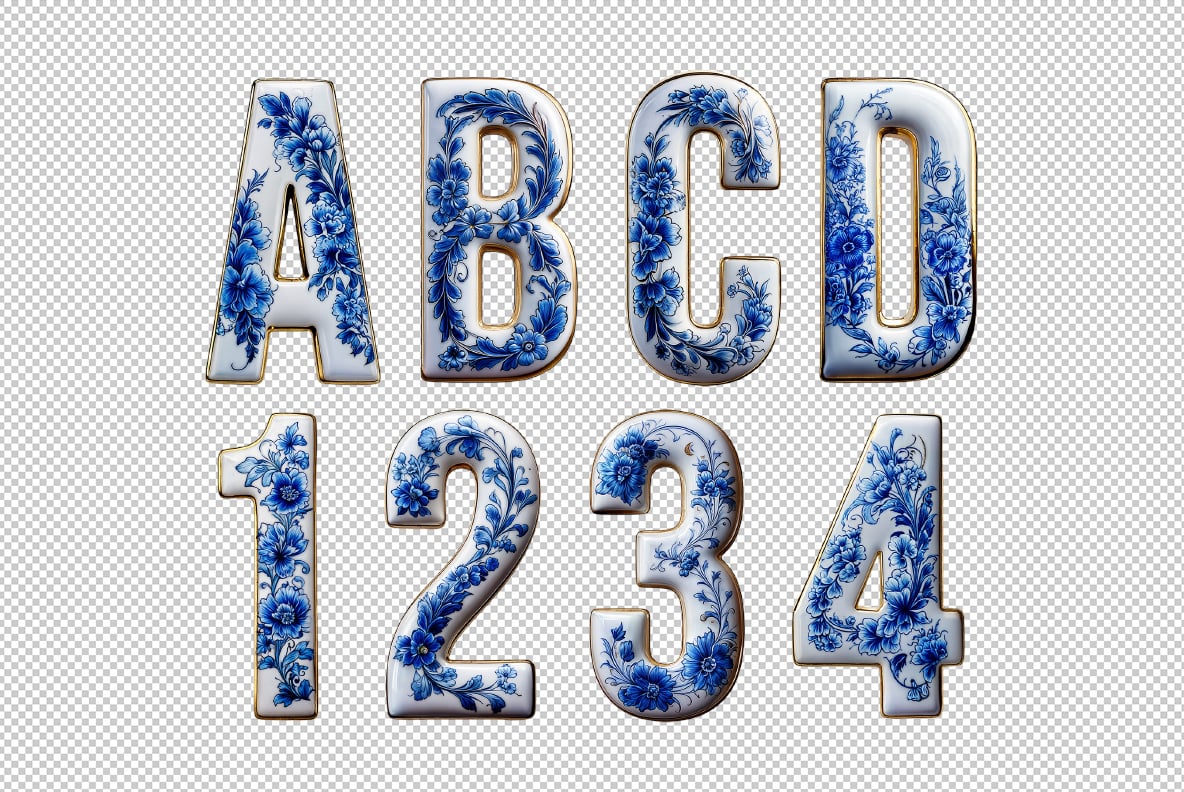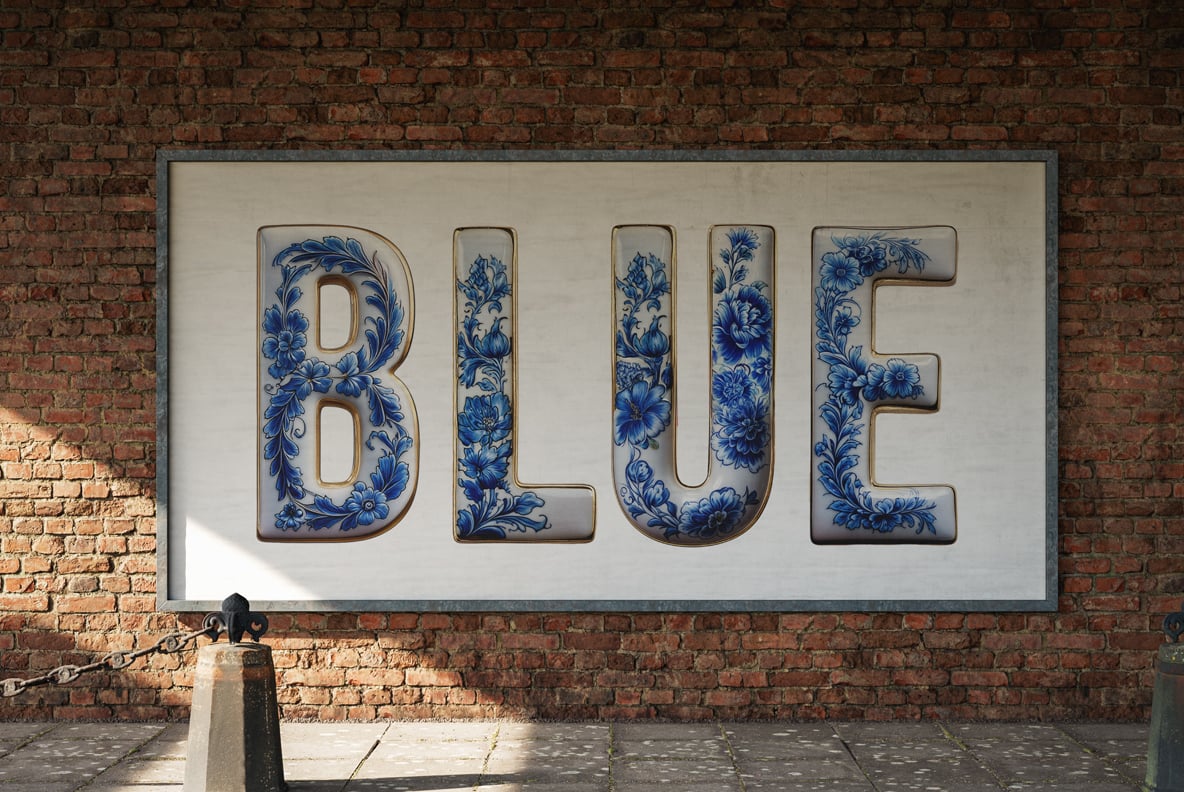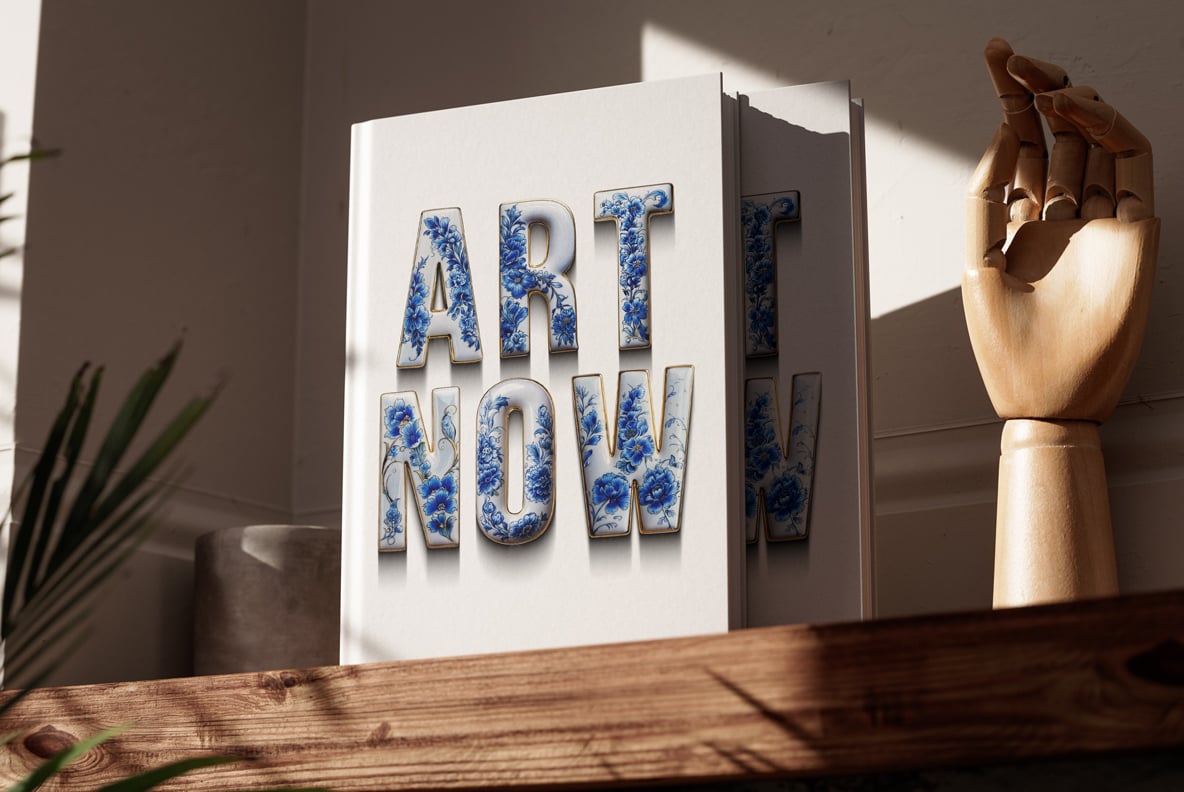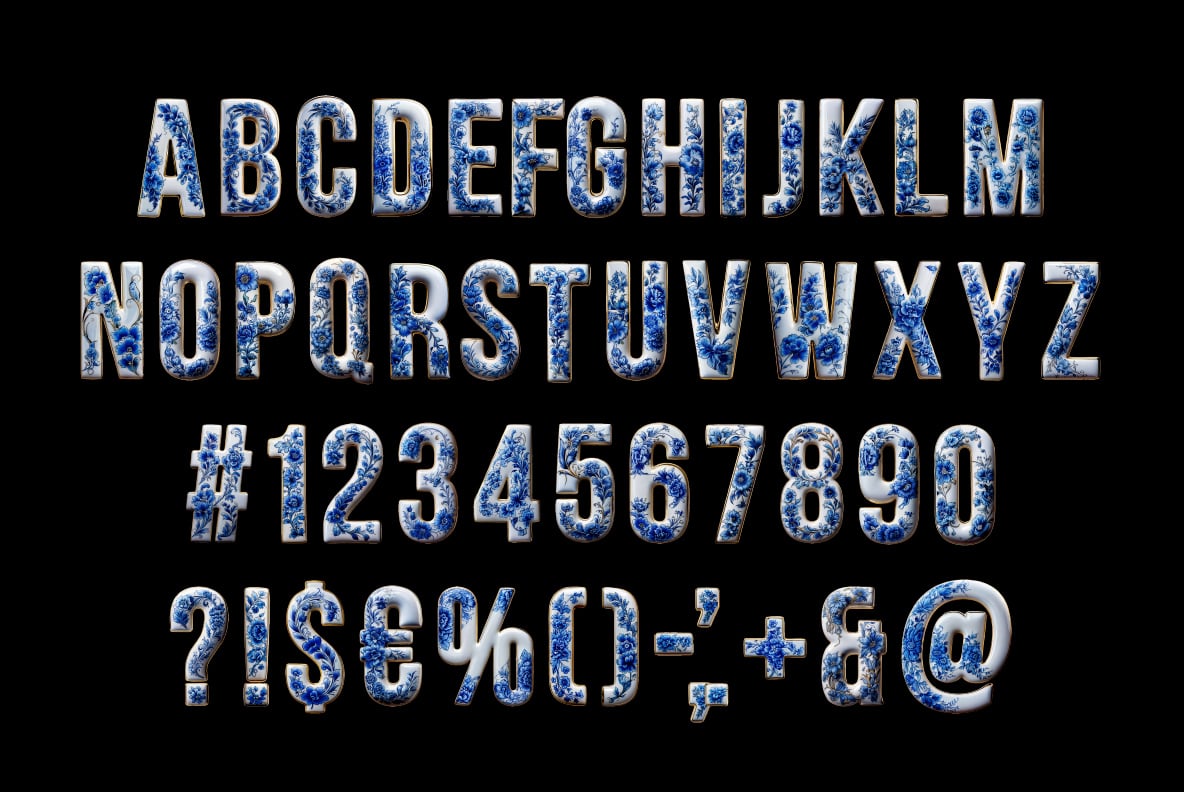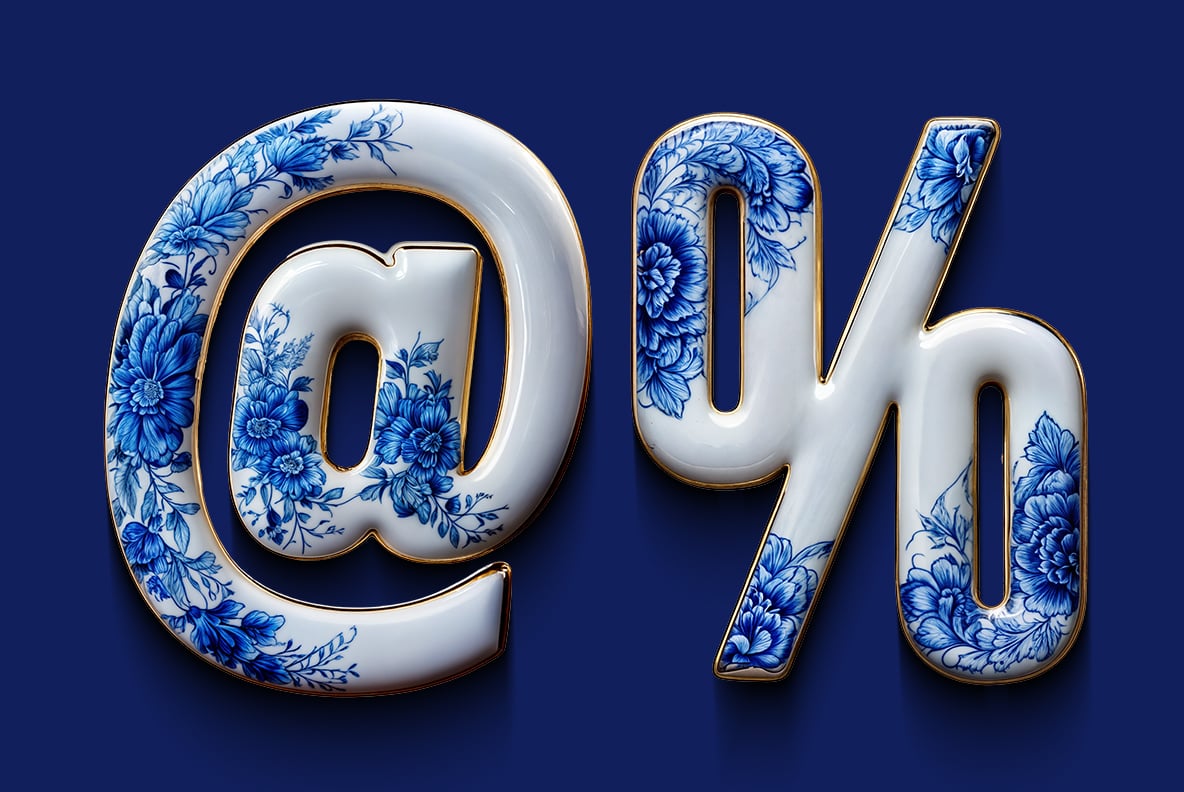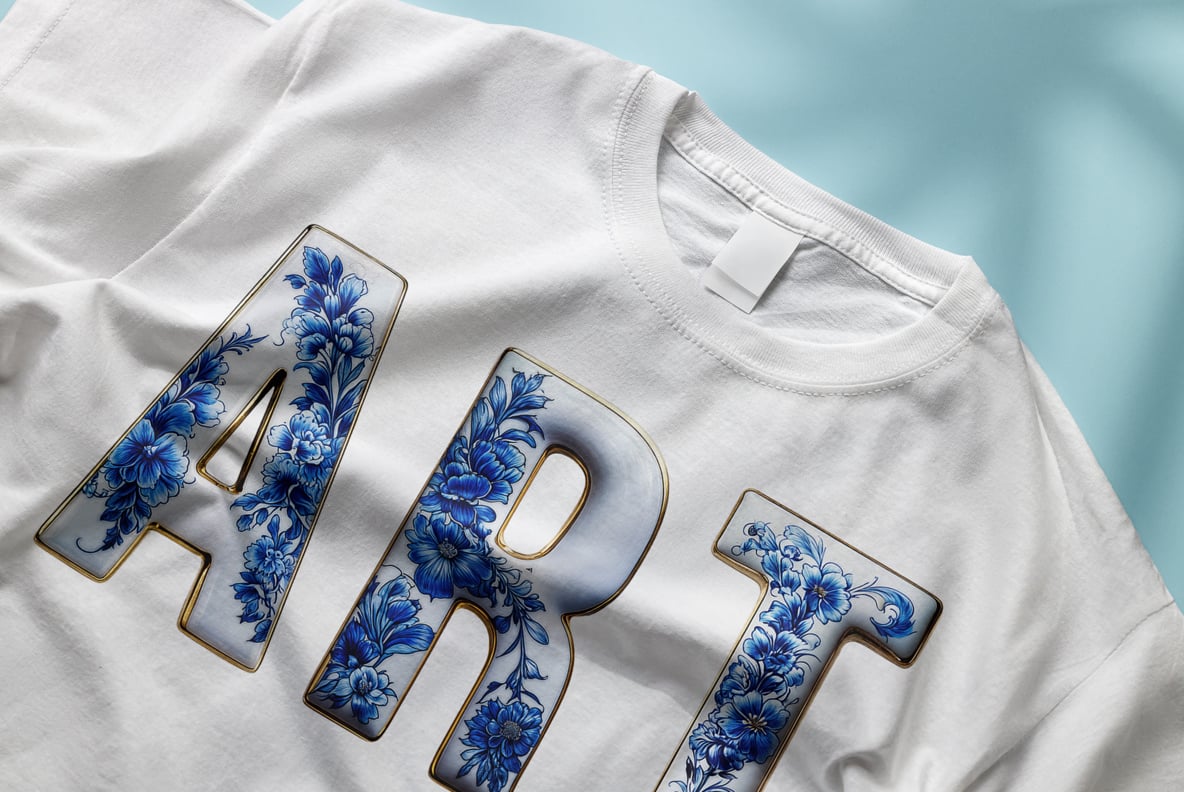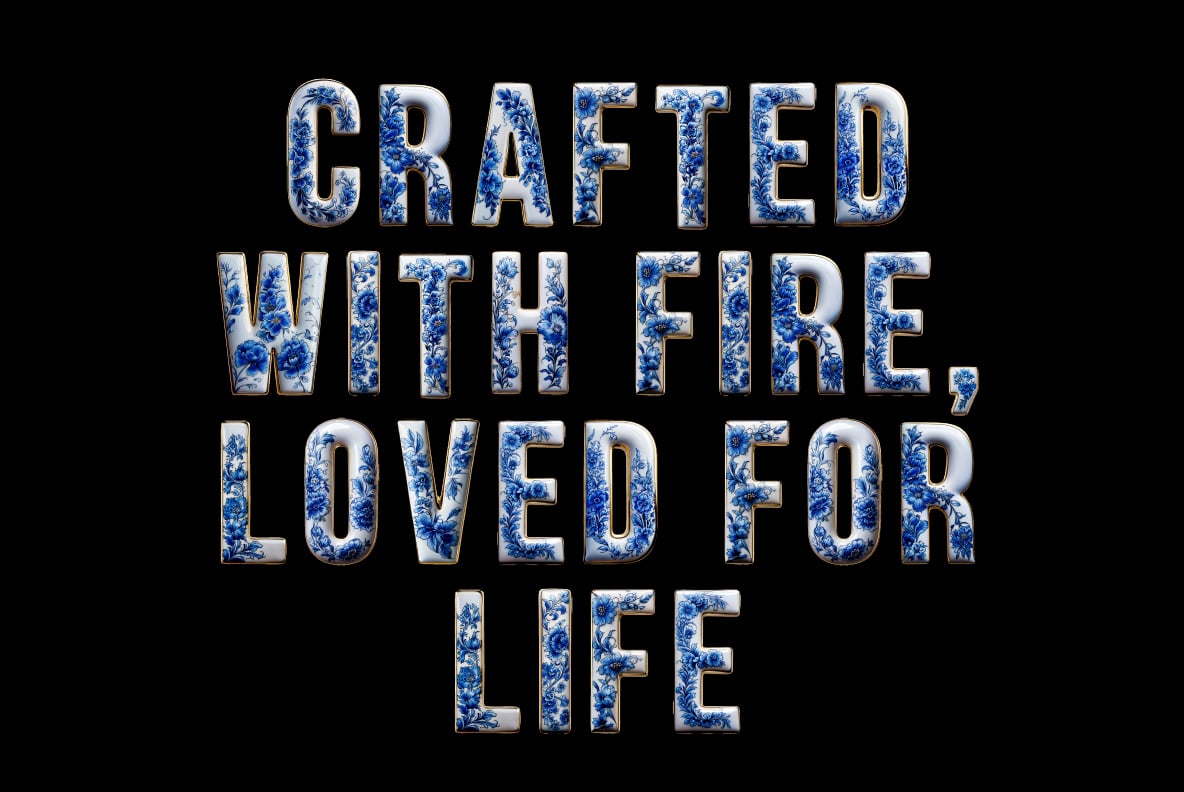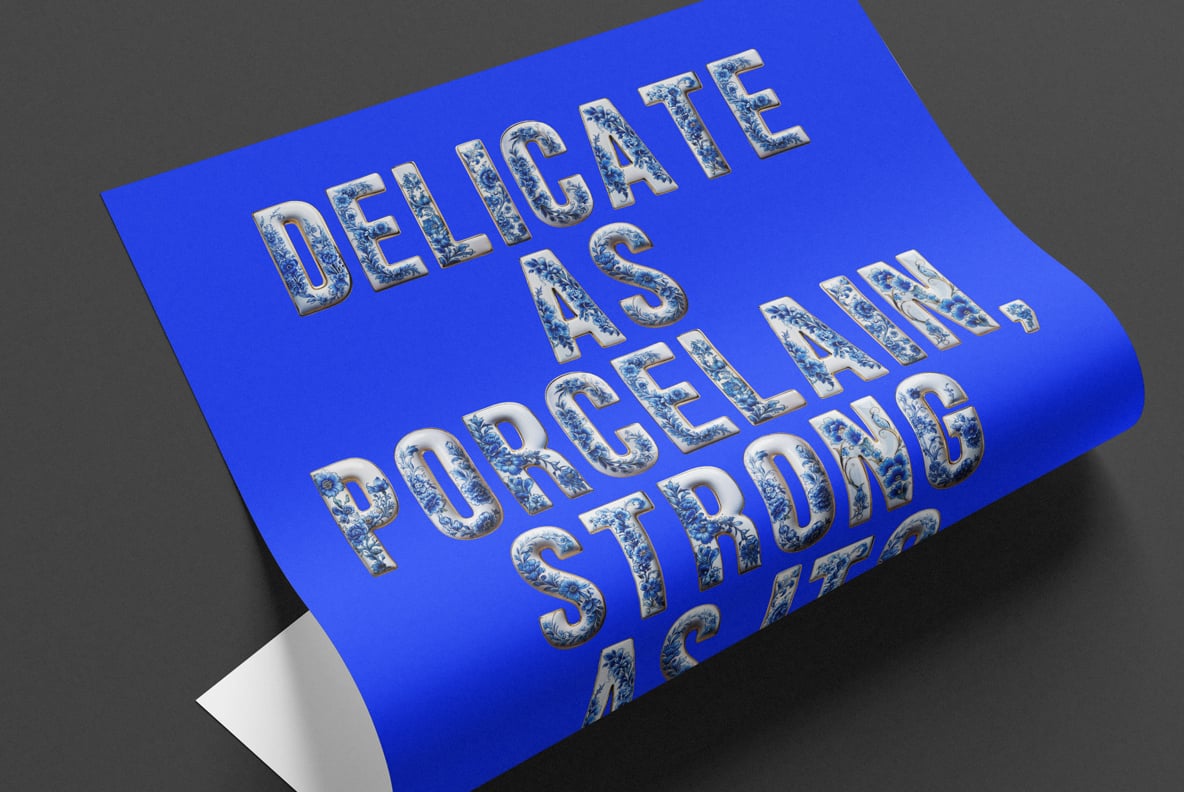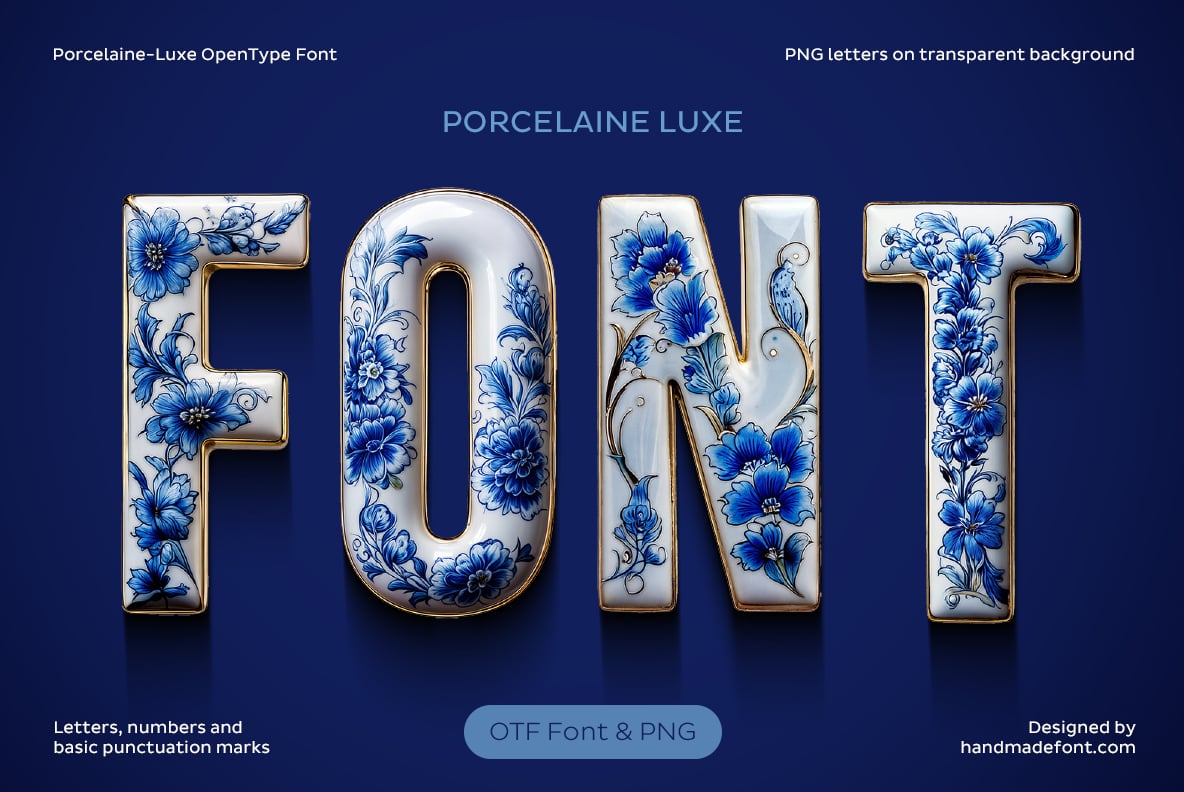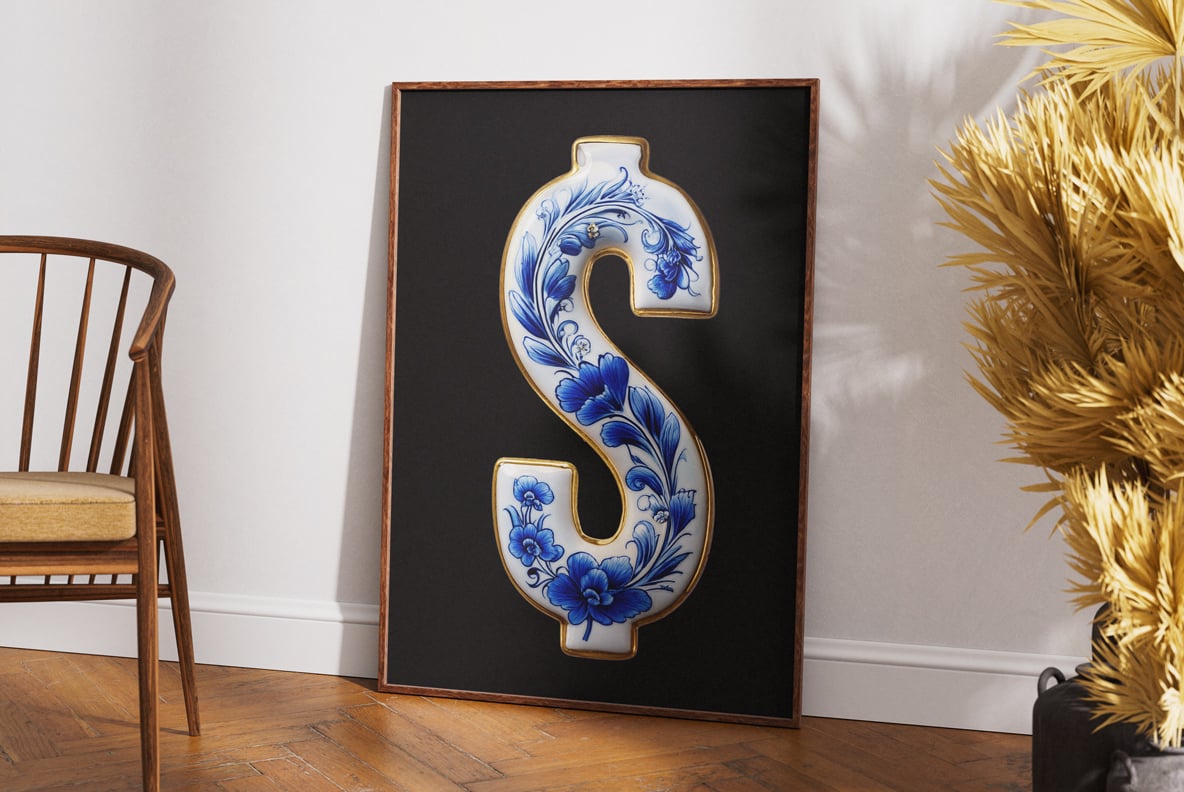
Porcelaine Luxe Font
"Porcelaine-Luxe Font" is an elegant and sophisticated typeface inspired by fine porcelain craftsmanship. Each letter and number is adorned with intricate blue floral patterns, echoing the timeless charm of classic Delftware. The glossy ceramic texture, delicate gold accents, and hand-painted look make this font perfect for luxurious branding, packaging, and creative projects with a refined aesthetic. With transparent PNGs and high resolution, it’s ready to enhance any digital or print design. Ideal for weddings, stationery, invitations, or editorial pieces, Porcelaine-Luxe adds a touch of vintage opulence to every word. Where tradition meets creativity—say it beautifully with Porcelaine-Luxe.
A high definition OpenType Font. Contains uppercase characters, numerals and basic punctuation. (Draw height roughly 800 pixels). All letters and glyphs that comprises this font you can see on the preview.